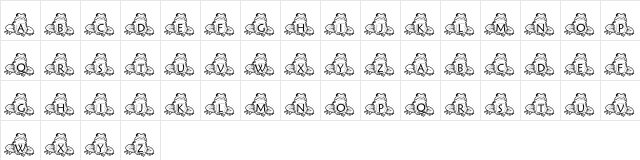
pf_frog_sitting Regular
Design Context for pf_frog_sitting Typeface
pf_frog_sitting is a composed and adaptable typeface that performs quietly and consistently across a wide range of design contexts.